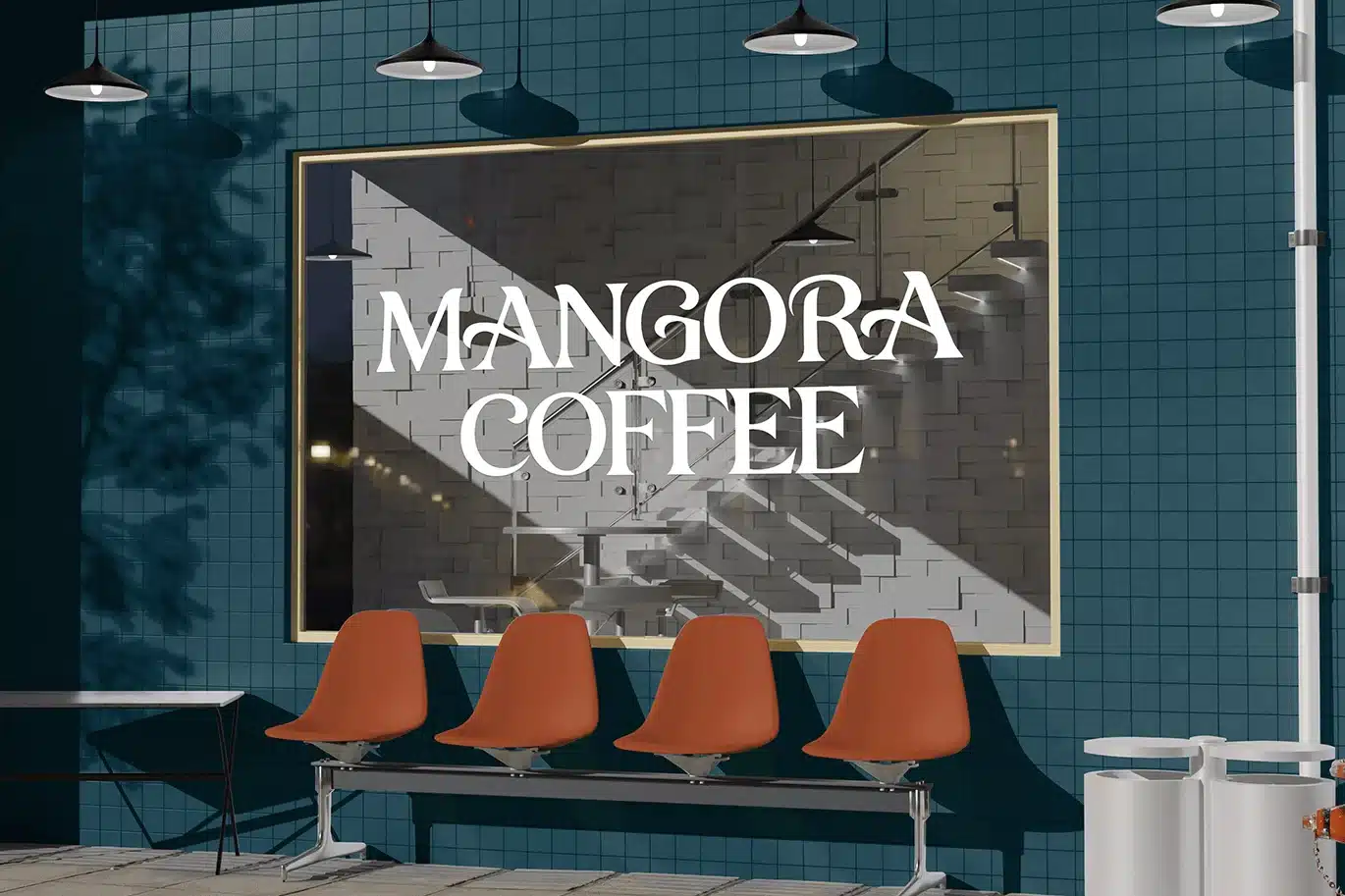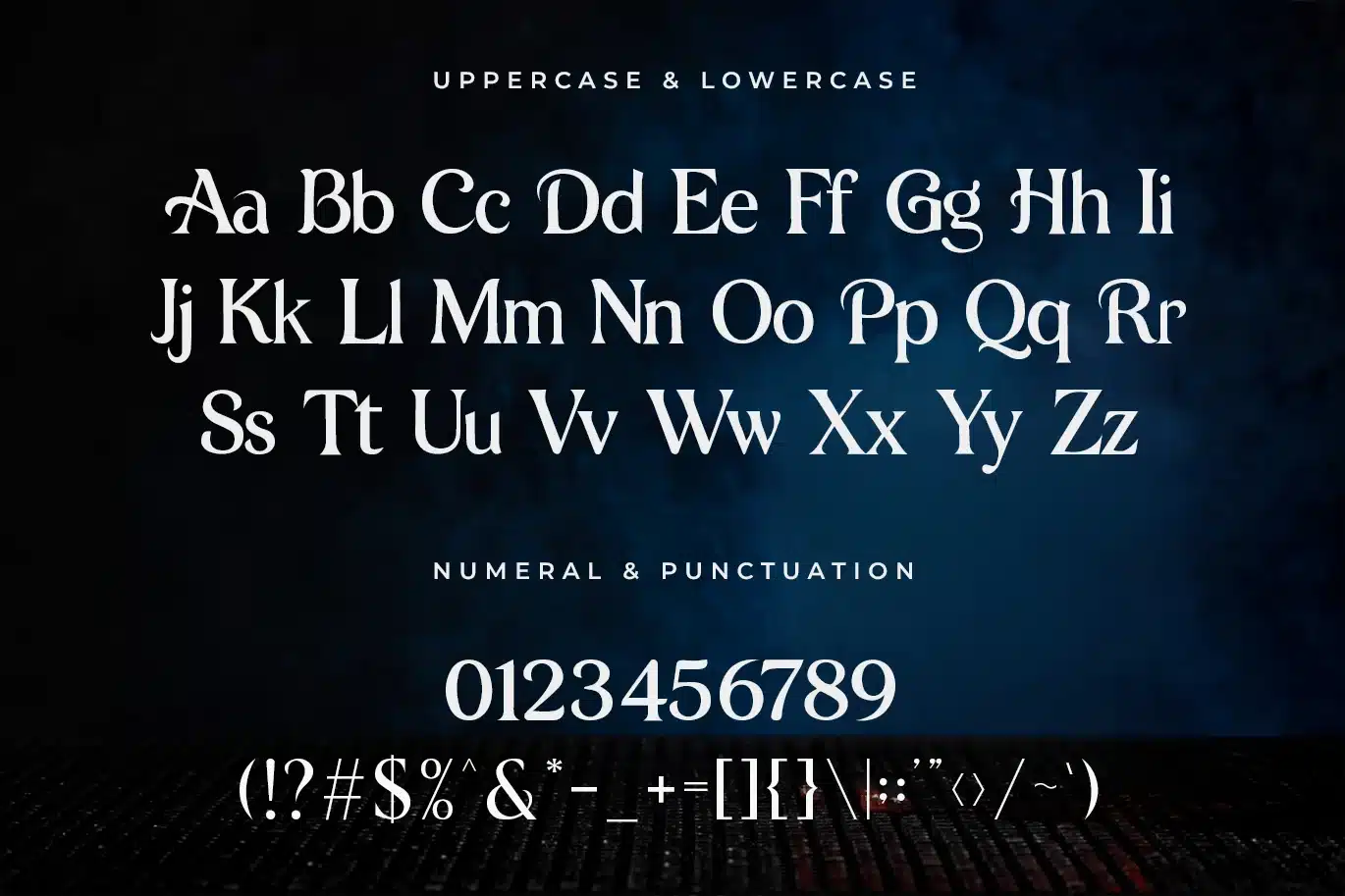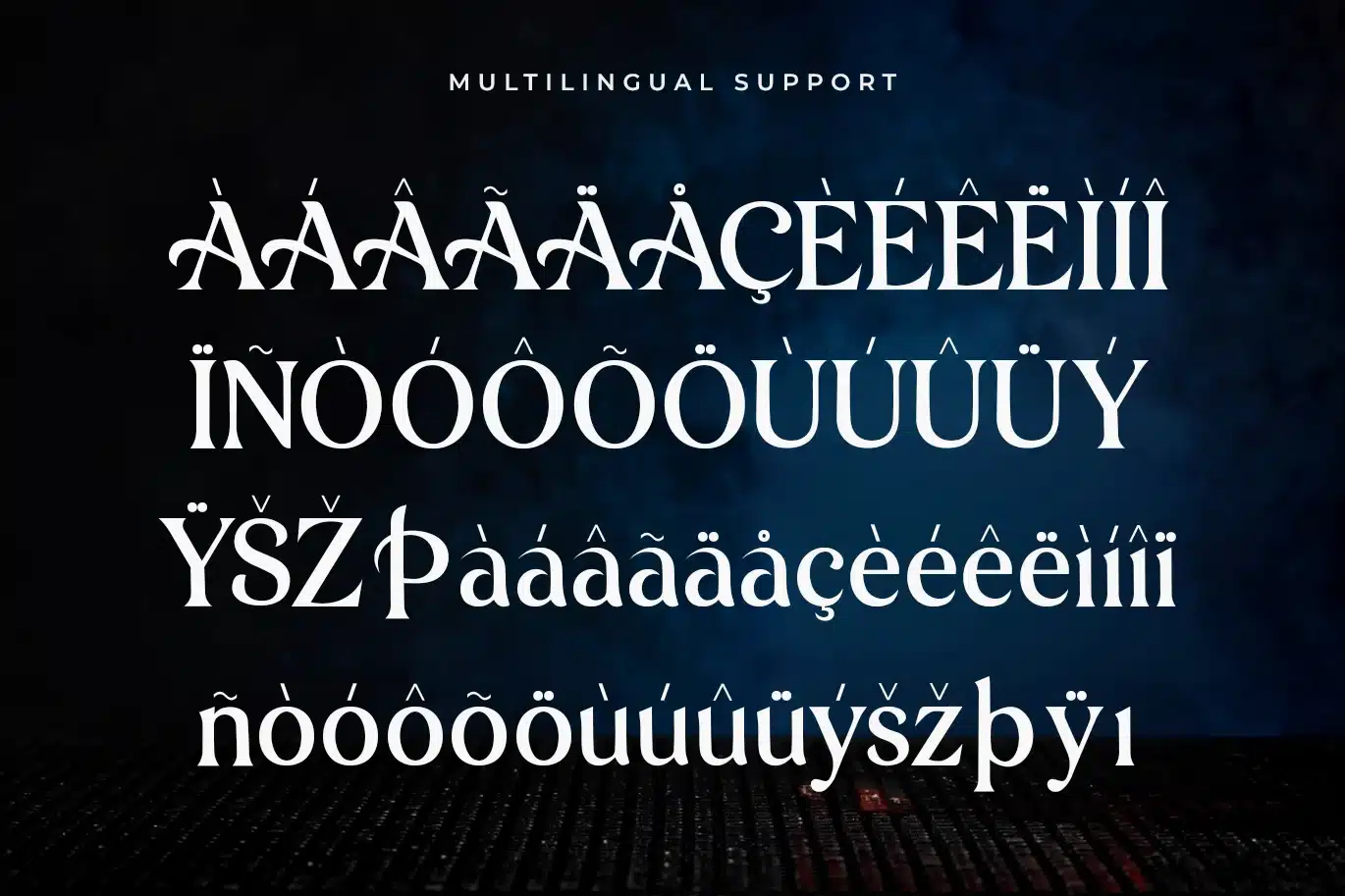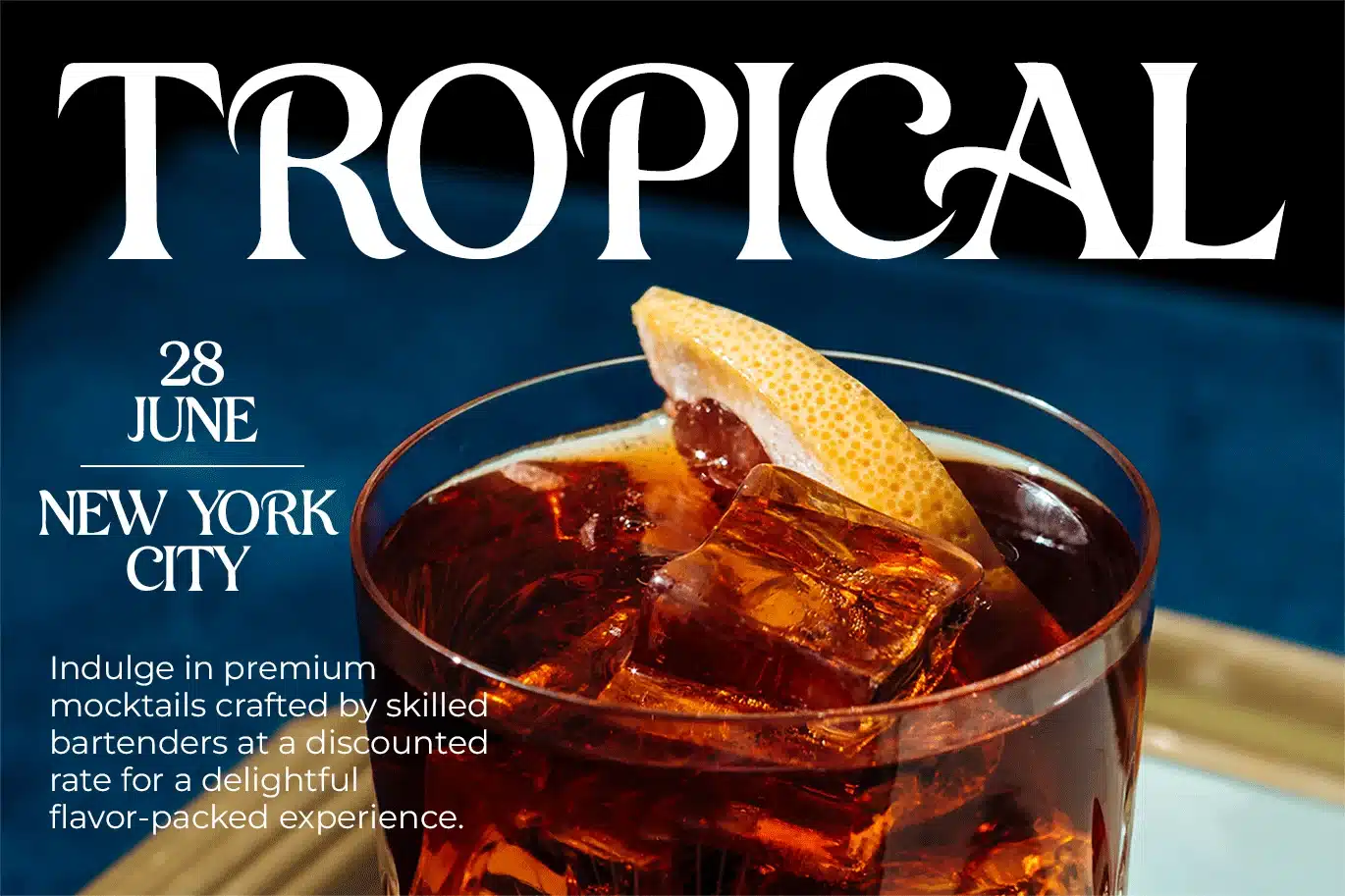
Elvoria – Modern Serif Font
Elvoria is a modern serif font crafted to deliver refined elegance with a contemporary touch. Featuring graceful serifs, smooth transitions, and balanced proportions, Elvoria offers a sophisticated typographic style that feels both timeless and fresh.
Perfect for branding, editorial layouts, fashion lookbooks, logos, packaging, invitations, magazines, and luxury marketing materials, Elvoria enhances your designs with a polished and professional aesthetic. Its delicate details and clean structure ensure readability while maintaining a high end visual appeal.